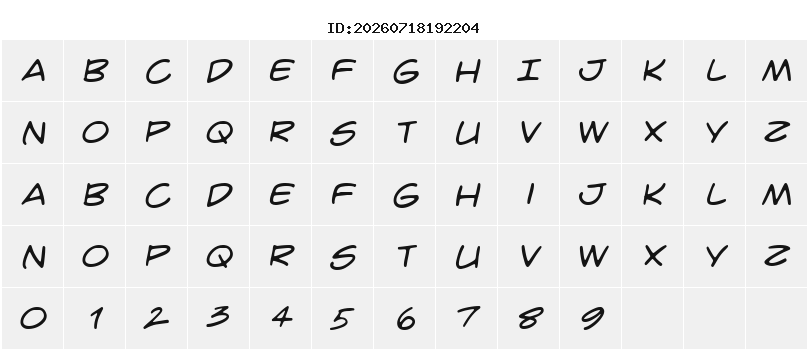
• Font Name: CrimeFighter BB
About CrimeFighter BB.ttf
CrimeFighter BB.ttf is a modern, elegant sans-serif font designed for ultimate readability and visual harmony. Perfect for branding, headlines, web design, and print materials.